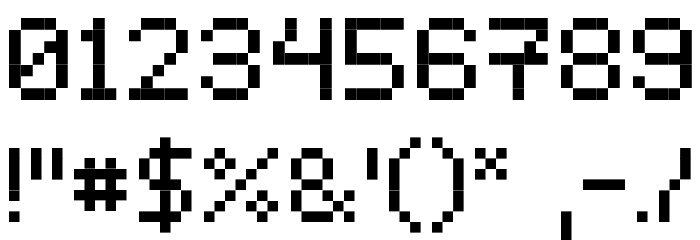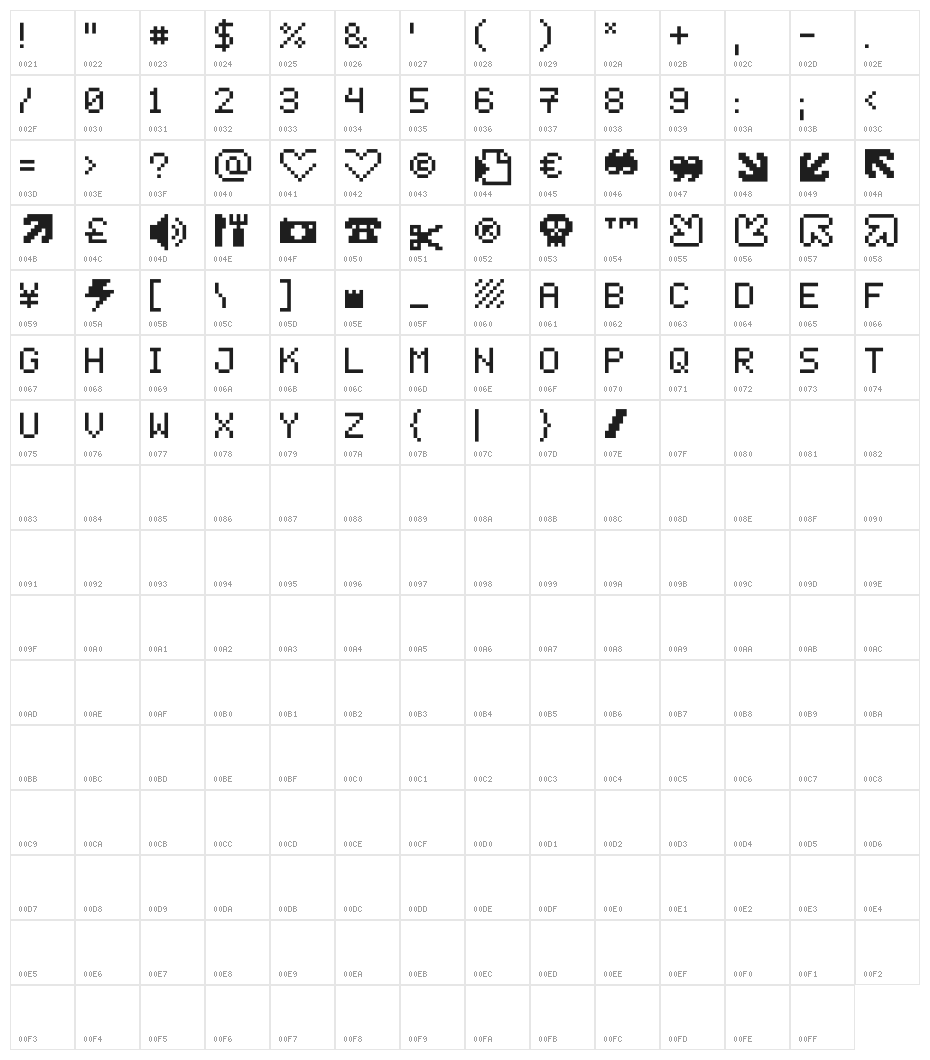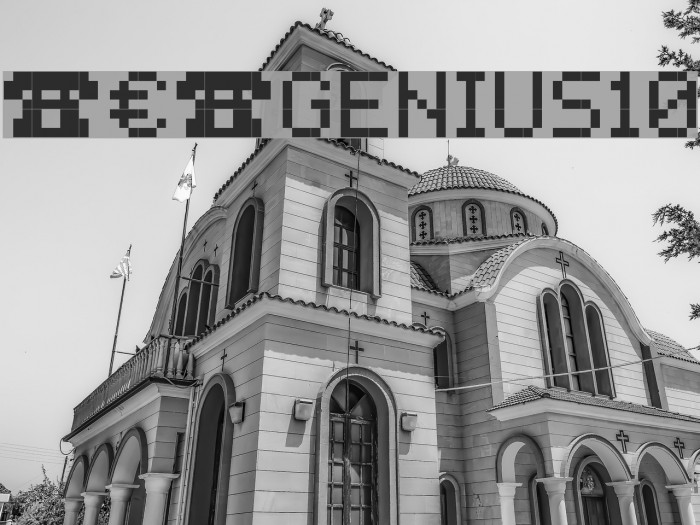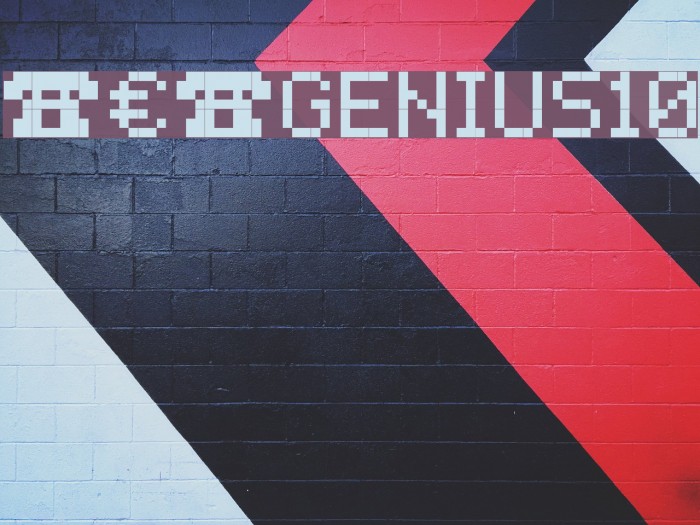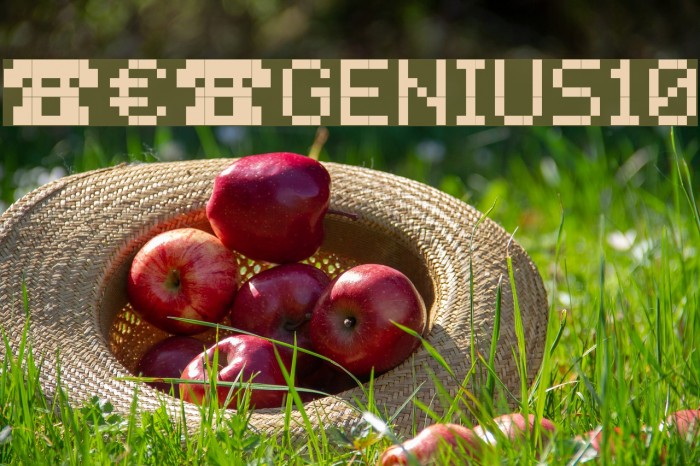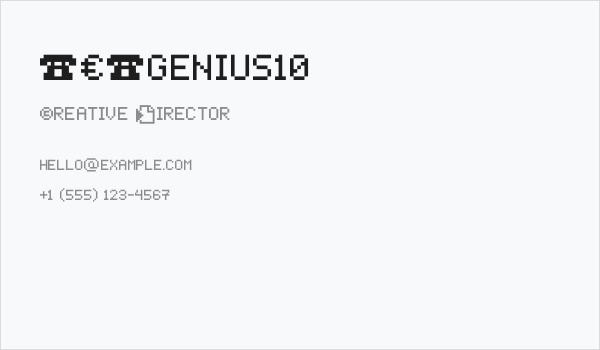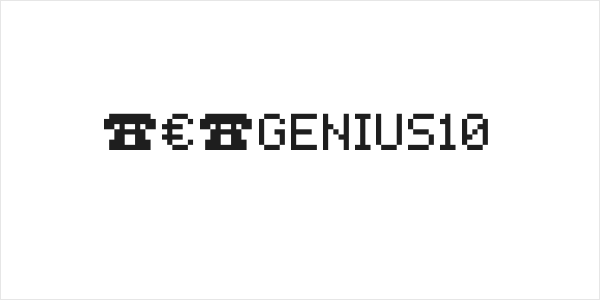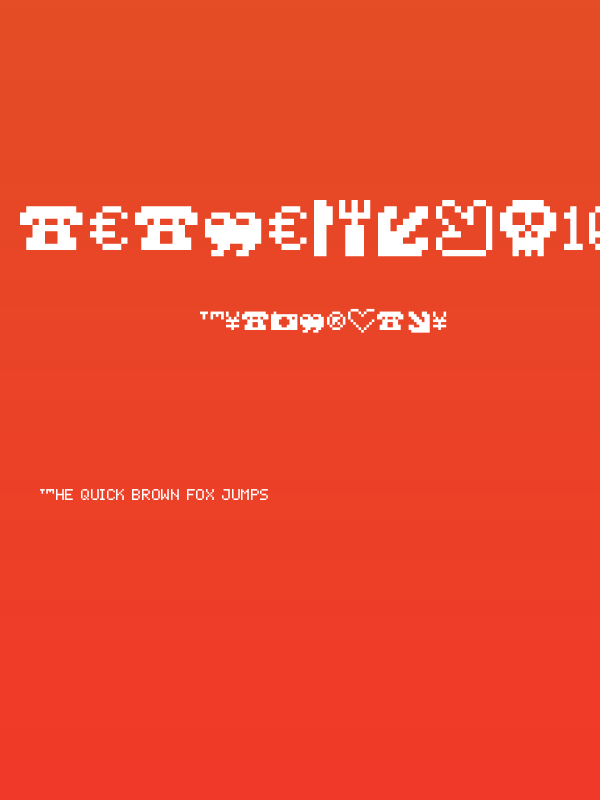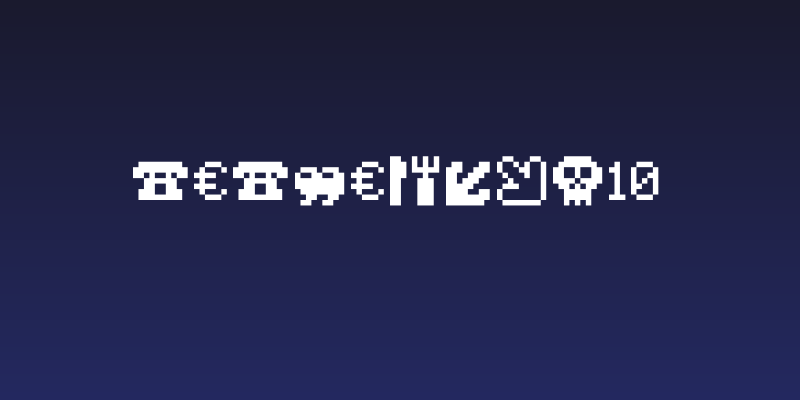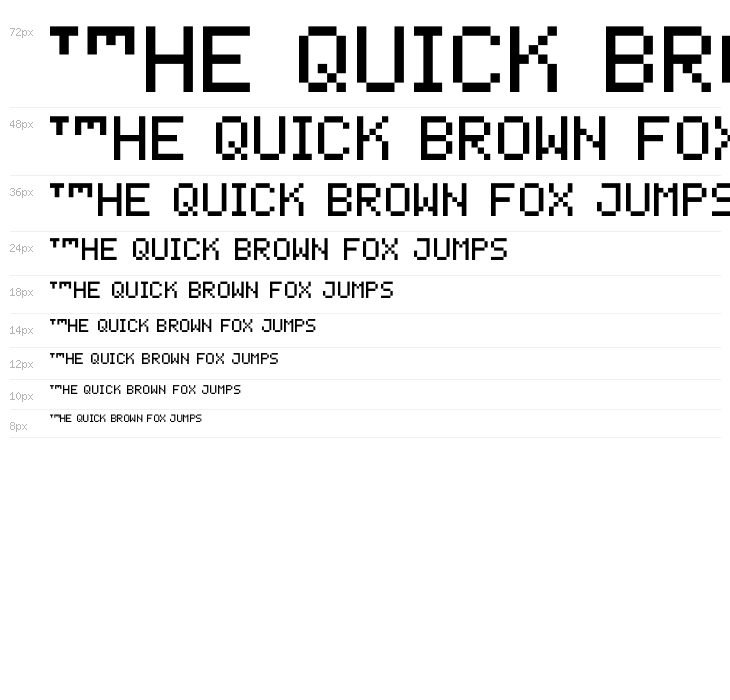
PEPgenius10 Font
PEPgenius10 Description
This font features a pixelated, blocky design reminiscent of early digital displays and video games. Each character is constructed from a grid of squares, giving it a distinctly retro and digital aesthetic. The uppercase and lowercase letters maintain a consistent height, contributing to a uniform appearance. Numbers and special characters follow the same pixelated style, ensuring visual coherence across all glyphs. The font's simplicity and geometric nature make it highly legible, even at smaller sizes, while its nostalgic charm adds a playful touch to any design.
Overall StyleVintage
Use CaseHeadlines, Logos, Digital displays
Proposed ProjectsIdeal for retro-themed designs, video game graphics, digital art projects, and tech-inspired branding.